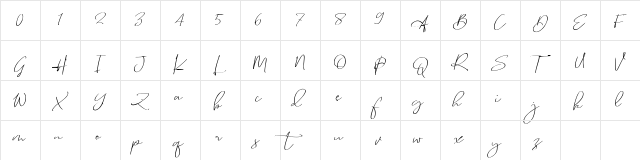
AudreyDemo Regular
| Foundry | AwanStudio |
| Designer | AwanStudio |
Design Context for AudreyDemo Typeface
AudreyDemo is a composed and adaptable typeface that performs quietly and consistently across a wide range of design contexts.